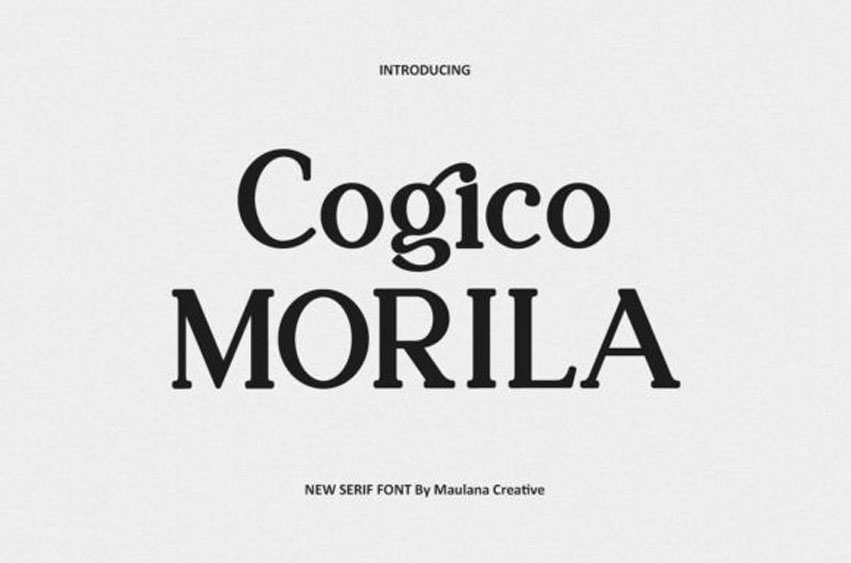
Cogico Morila Font
Cogico Morila Font is a classic-meets-modern serif font designed to bring intelligence, confidence, and a subtle creative edge to your typography.
With its elegant curves, distinctive terminals, and carefully crafted ligatures, Cogico Morila is perfect for editorial designs, branding, book covers, headlines, and high-impact logos.
This font strikes a balance between traditional serif structure and contemporary details, resulting in a timeless yet fresh personality. The unique “g” and other letterform quirks add just the right amount of flair, making it stand out without overpowering your design.
Whether you’re working on minimalist brand identities or refined magazine layouts, Cogico Morila delivers professional style and typographic versatility.